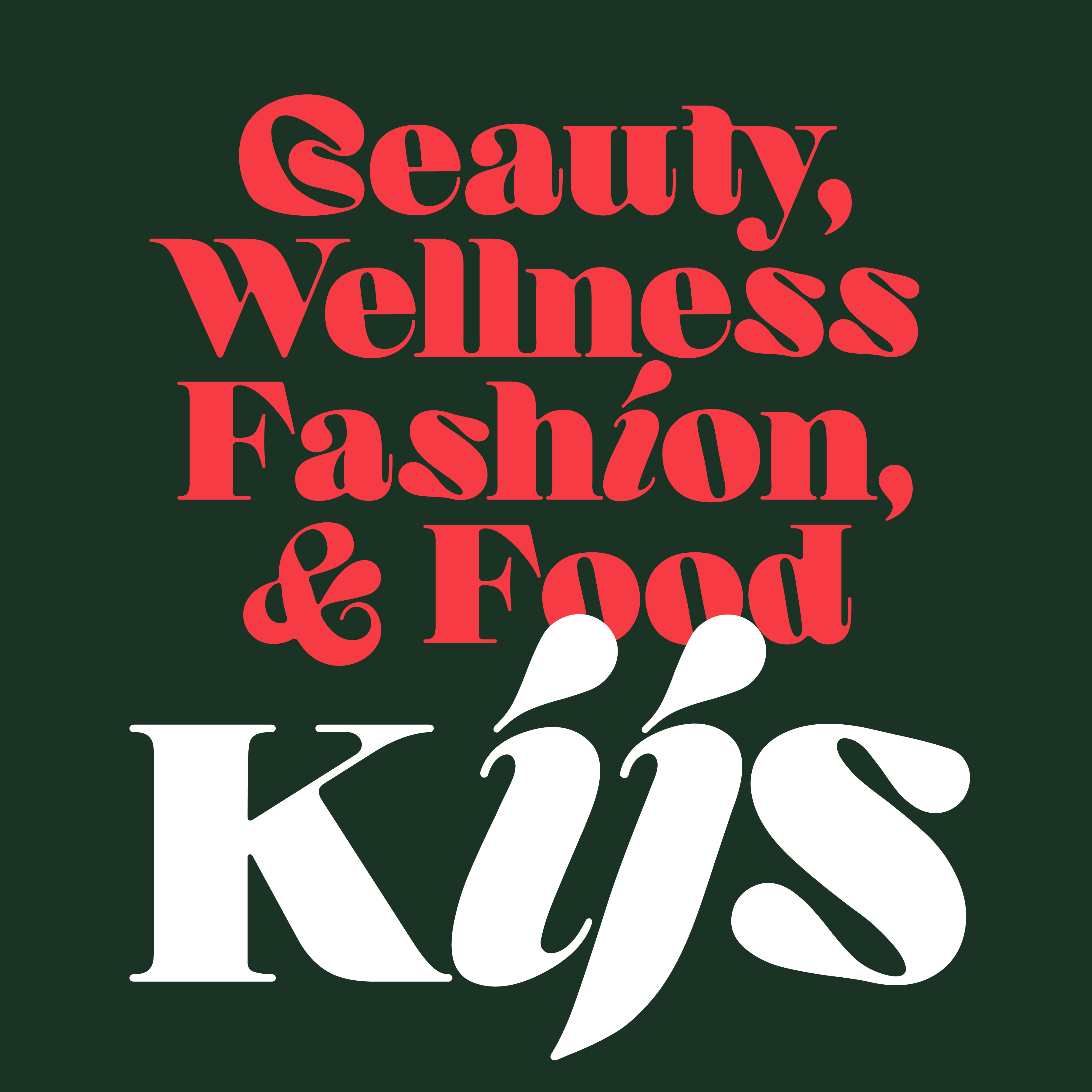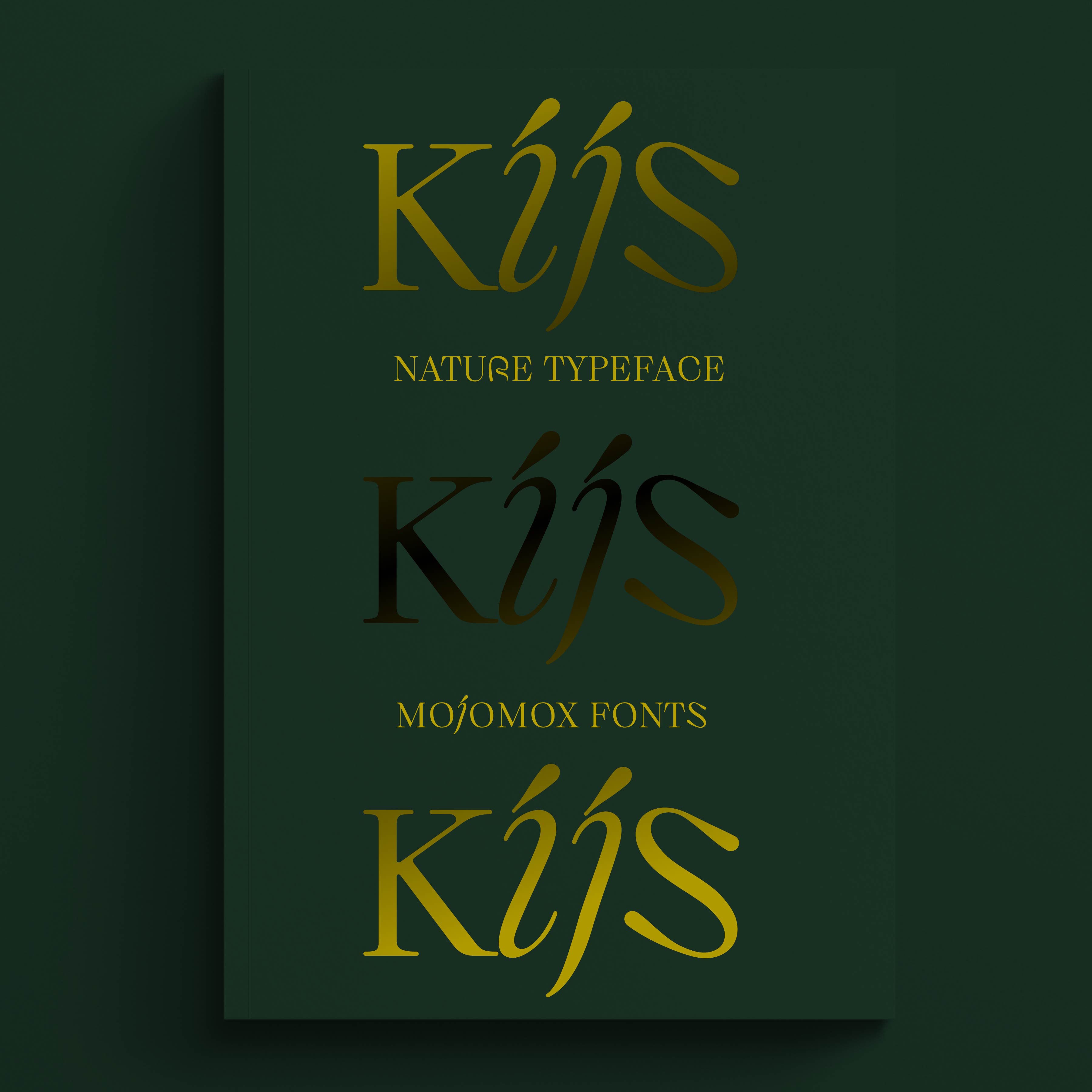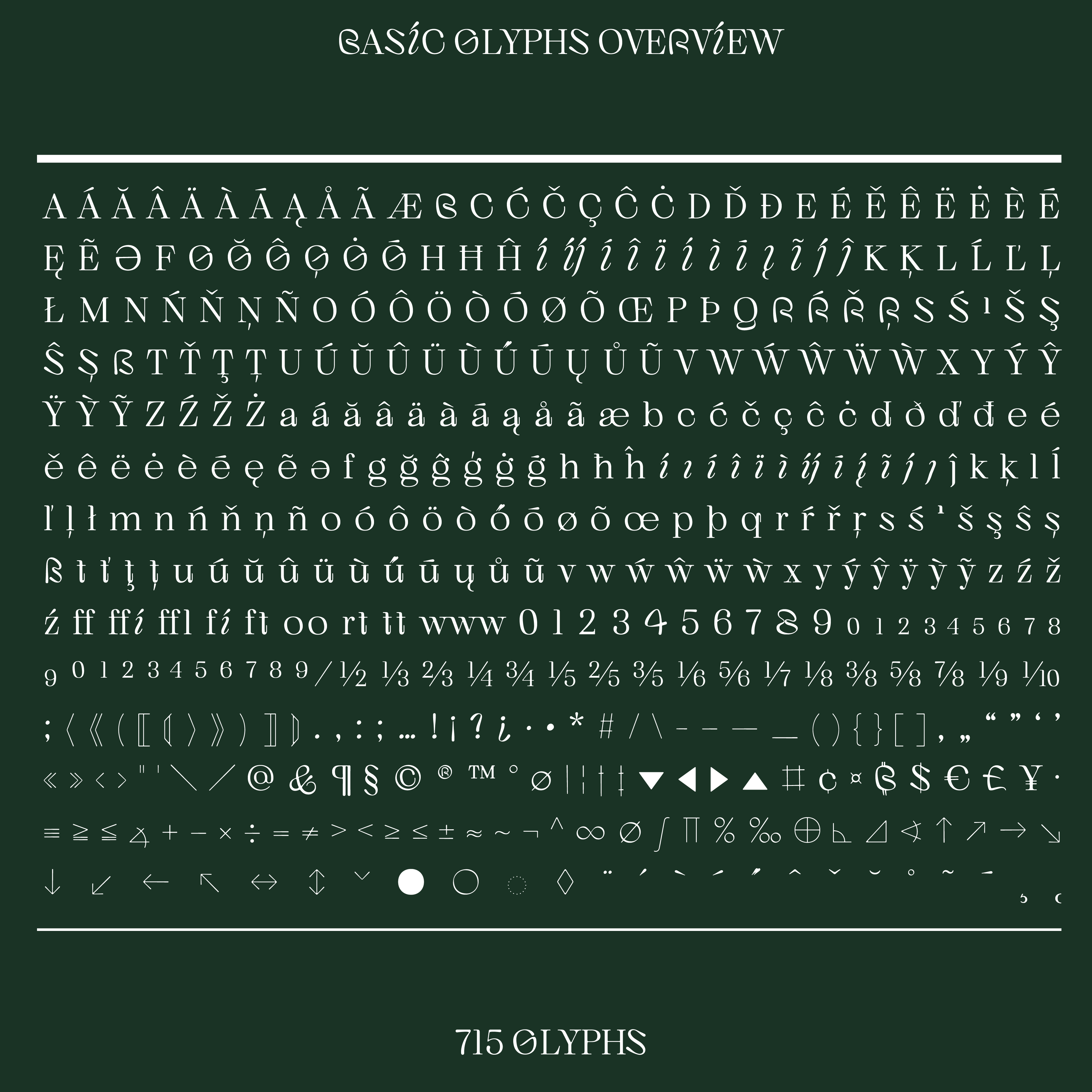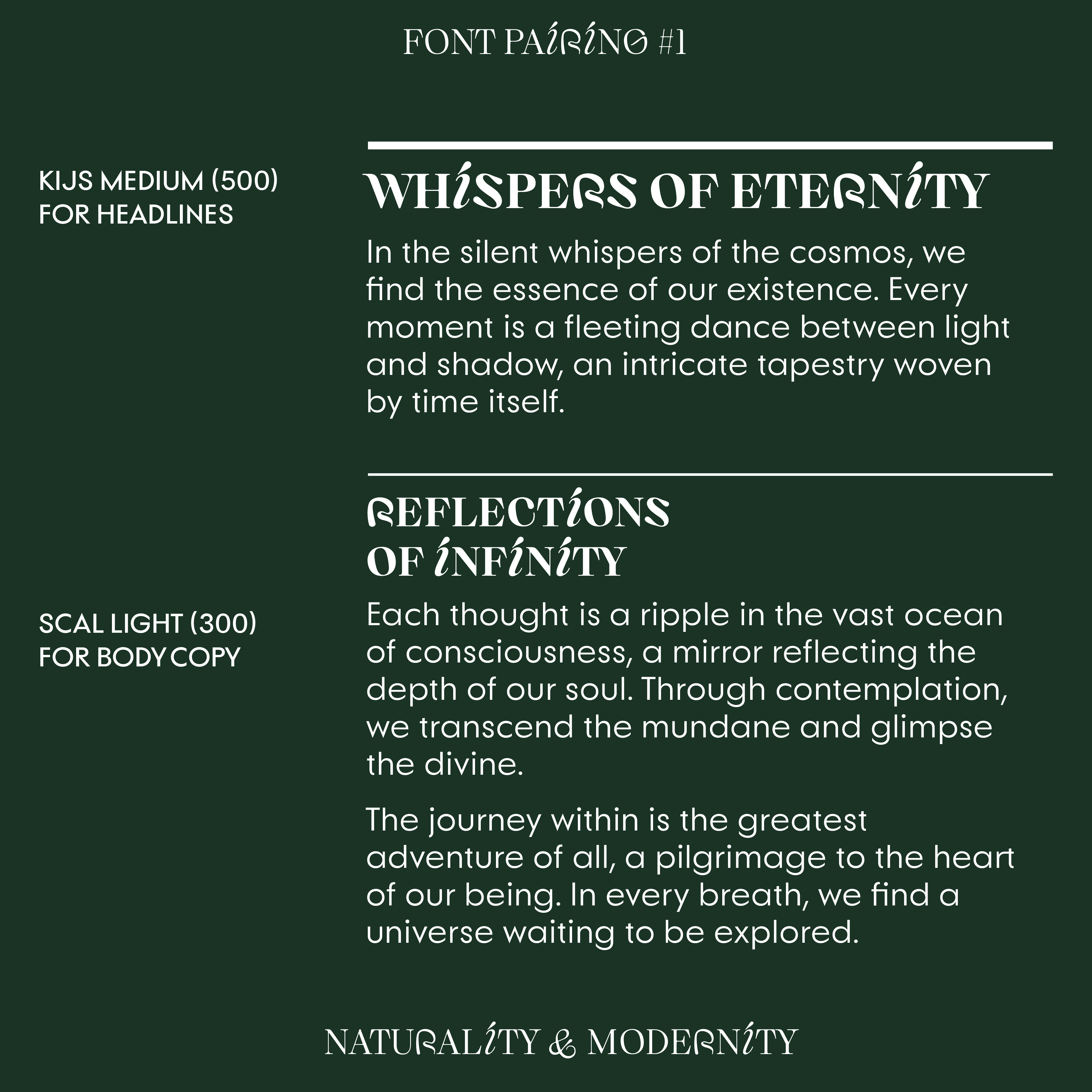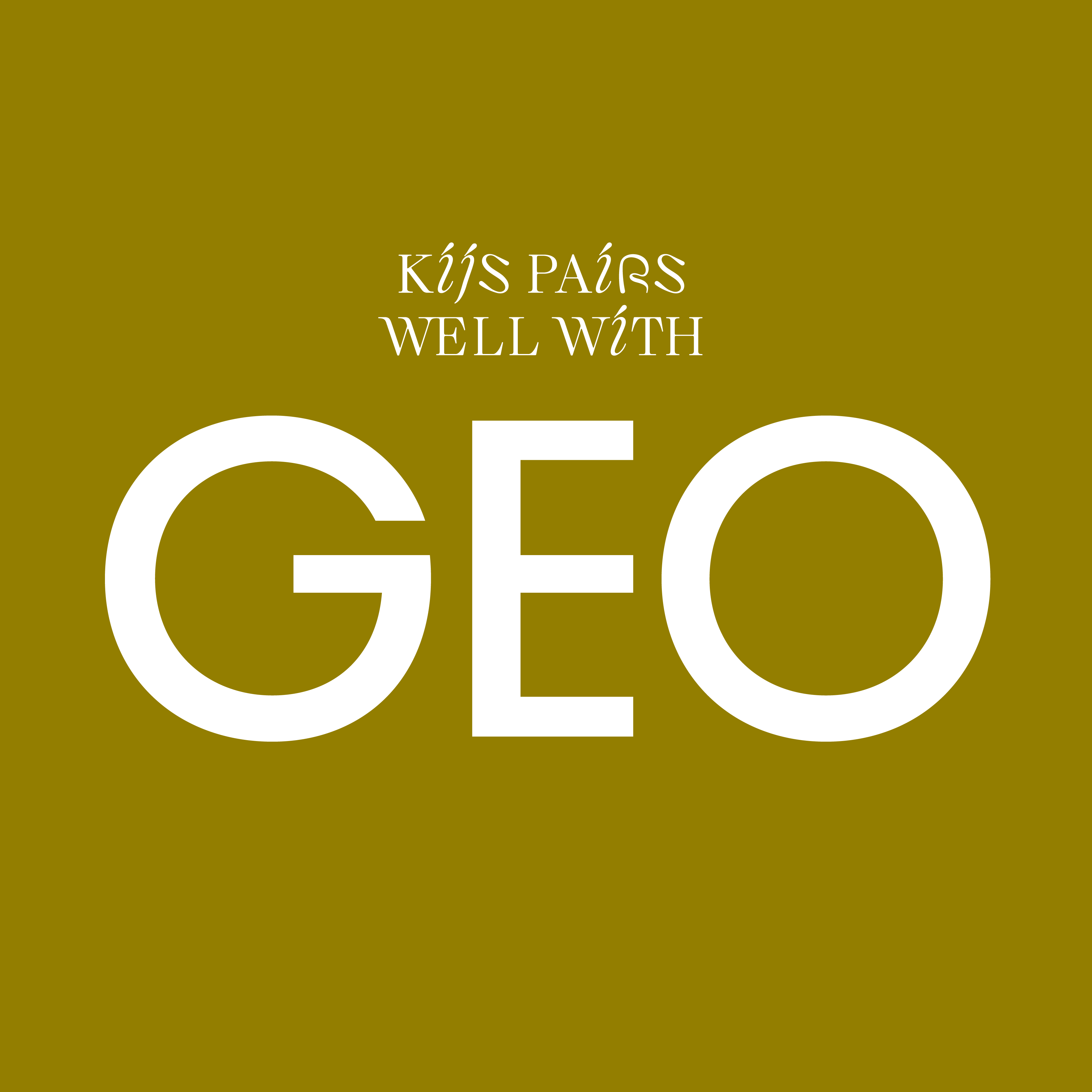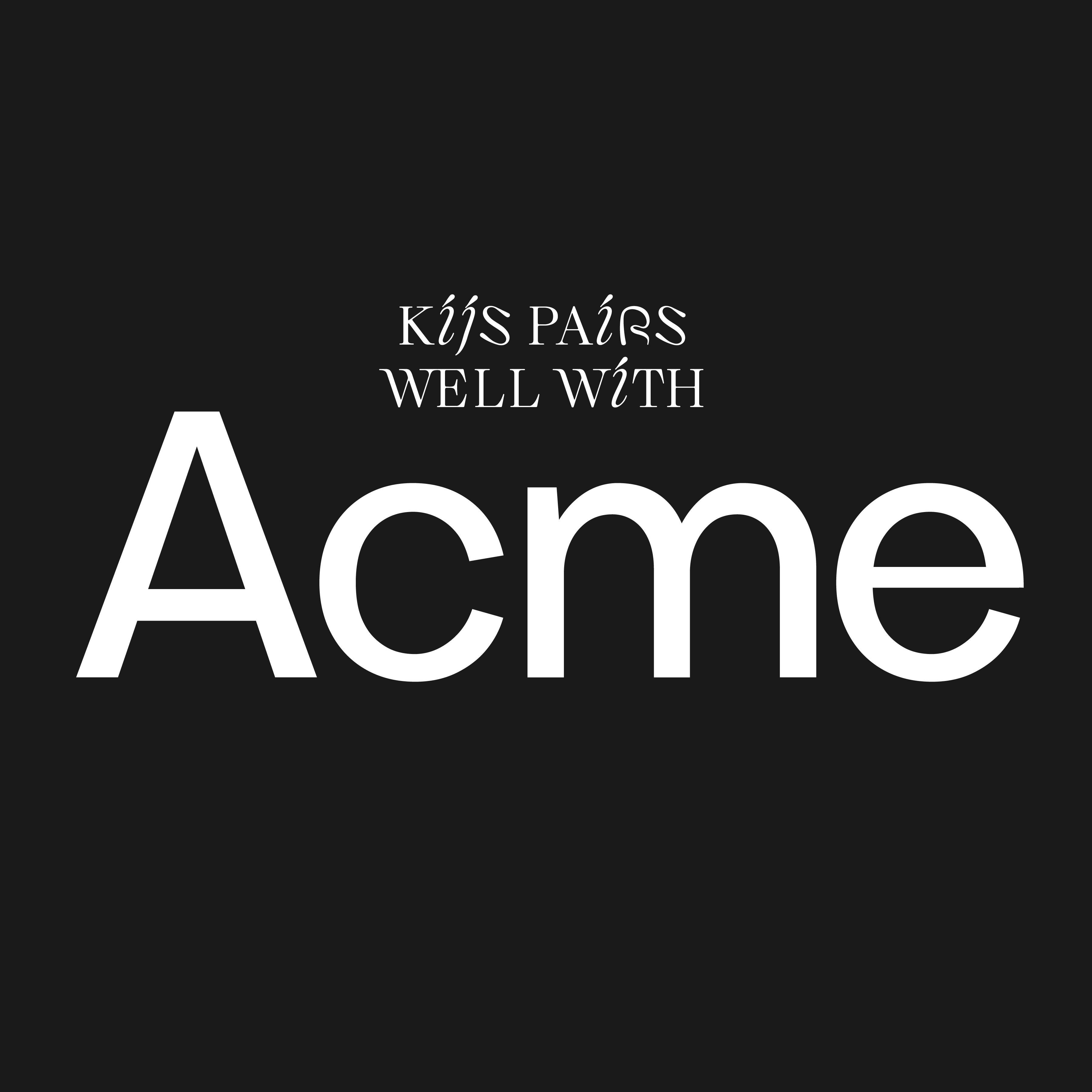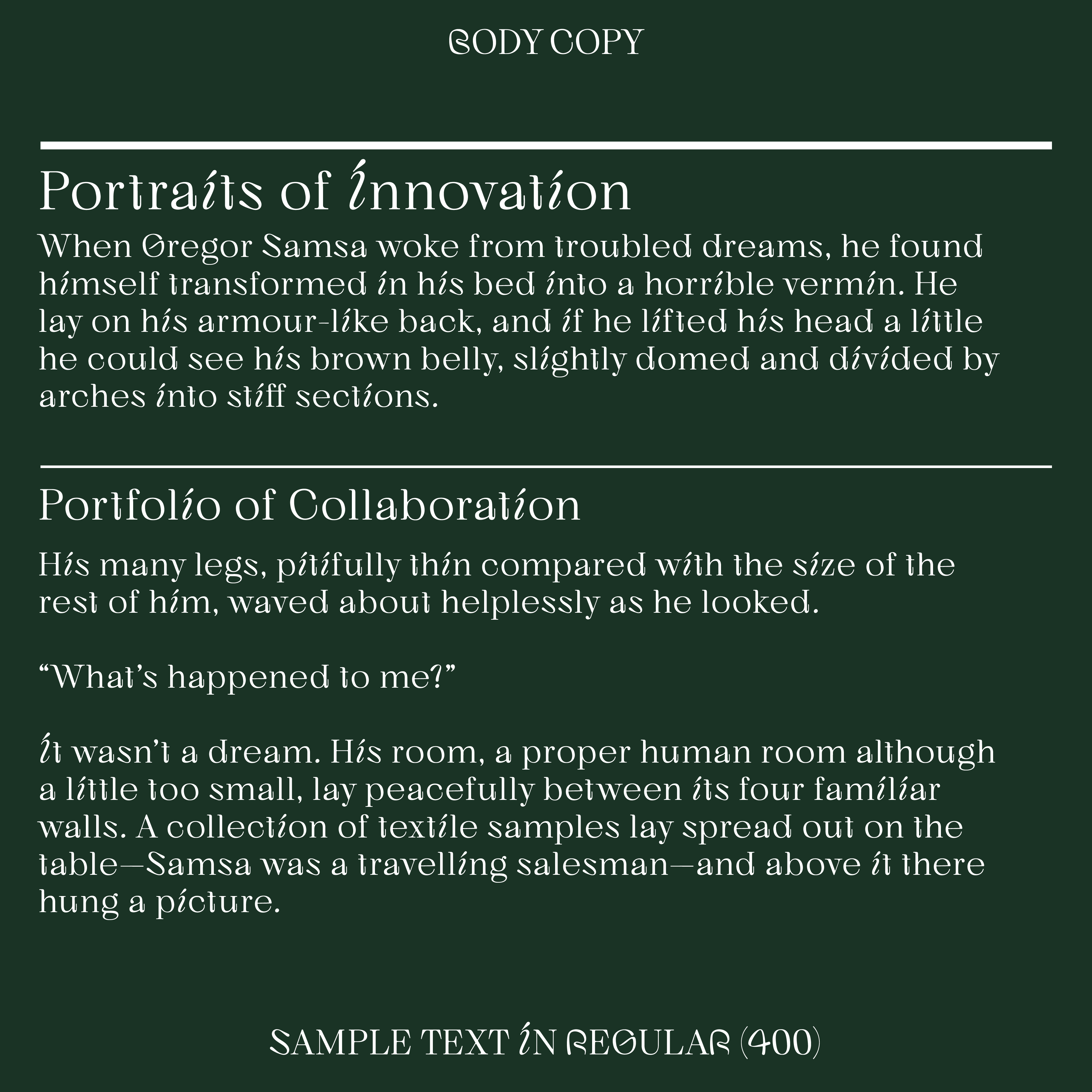
Kijs, Nature Serif Font with Calligraphy Style
Kijs is a nature-inspired serif font for free-spirited, elegant designs. It features inked counters, a wavy variance, and distinctive cursive “i” and “j” characters for an earthy personality.
With rounded terminals and numerous alternate letter designs, Kijs maintains an organic feel across its nine weights. The lighter weights offer sophistication, while the bolder weights provide flow and comfort.